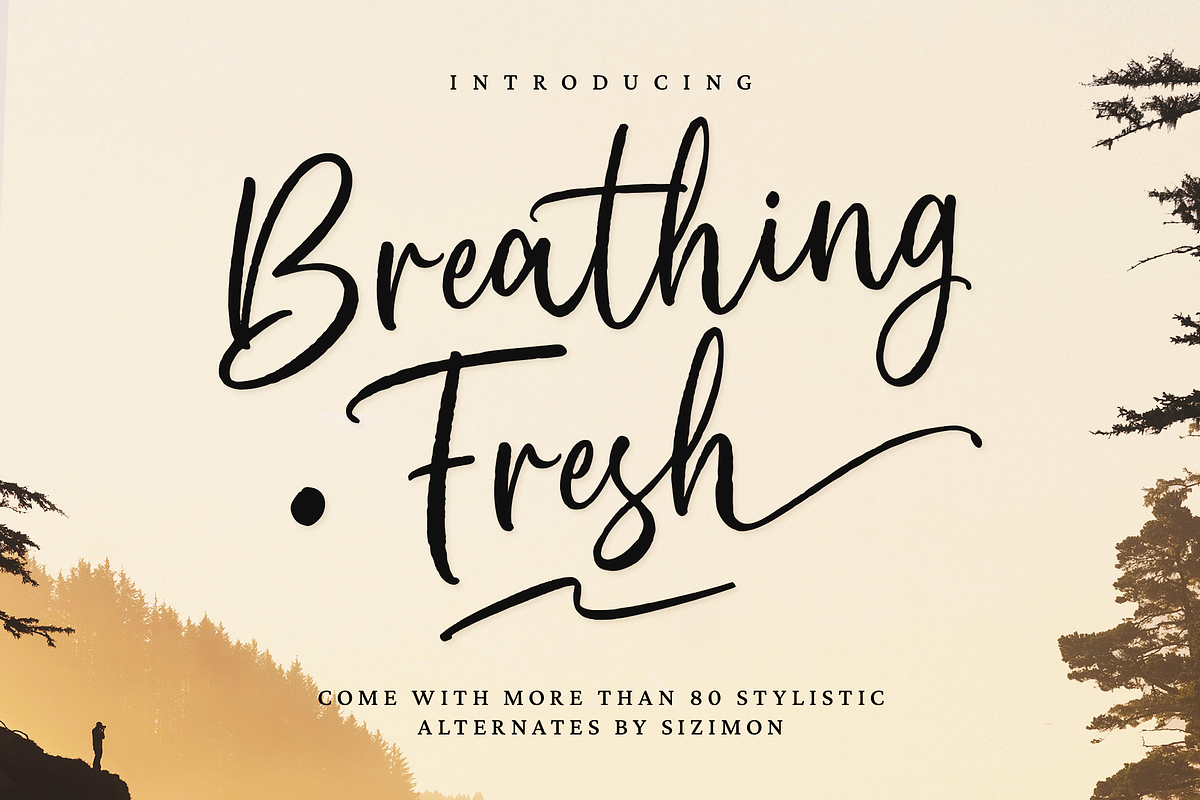
Breathing Fresh Script Font Free Download is a light, flowing handwritten typeface that exudes elegance, calm, and a touch of modern romance. With its smooth curves, natural rhythm, and airy strokes, this font is perfect for wedding invitations, wellness branding, beauty packaging, inspirational quotes, and social media graphics.
Crafted to mimic the grace of natural handwriting, Breathing Fresh Script Font Free Download includes stylish ligatures and alternates, giving your designs a personal, authentic feel. It’s ideal for projects that aim to feel fresh, soft, and emotionally resonant—while still being polished and professional.